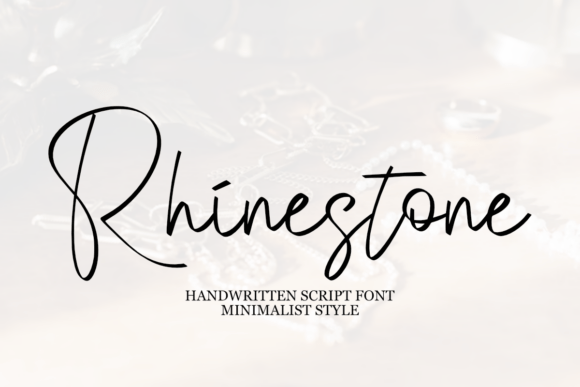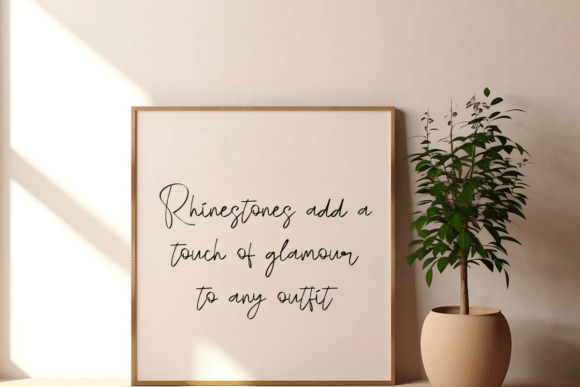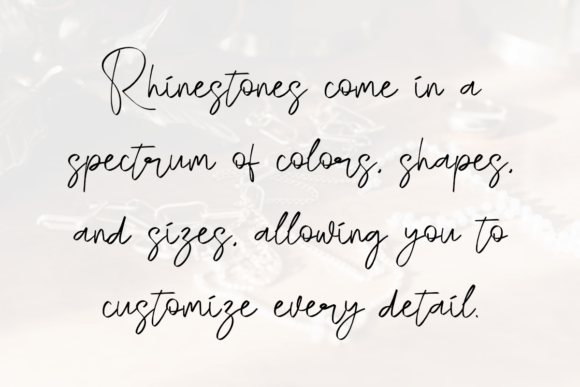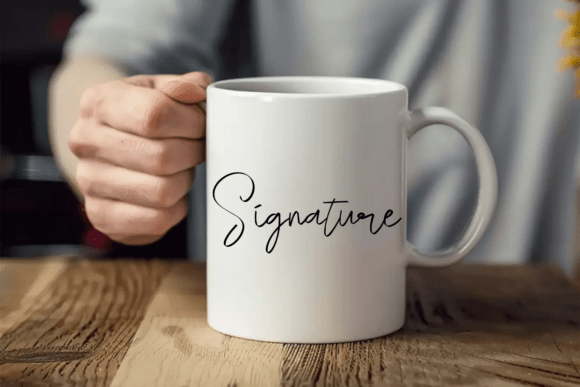
Rhinestone Font: Elegant Script for Wedding & Branding Design
About the Rhinestone Font
Welcome to the world of Rhinestone Font, a typeface that will inspire your next great project. Rhinestone is a sweet and cursive handwritten font. This gentle font will look gorgeous on a variety of design ideas. It will add a joyful and romantic touch to each of your projects! Perfectly fit for branding, logo, wedding things, greeting cards, fashion, lookbook, marketing promotion, and any time you want your design to look fancy and elegant but still casual.
Rhinestone’s playful yet elegant style makes it ideal for headlines, short text blocks on invitations or packaging, and logos requiring a touch of handwritten charm. It excels in branding for businesses focused on fashion, beauty, or events with a romantic or whimsical feel. However, its cursive nature and relatively low x-height make it unsuitable for body text or UI elements where readability is paramount. Avoid using it for lengthy paragraphs or small sizes.
Pairing Rhinestone effectively requires considering its delicate nature. A clean sans-serif like Lato or Open Sans provides a strong, modern counterpoint, offering readability for supporting text. For a more luxurious feel, pair it with a classic serif like Garamond or a subtly geometric sans-serif like Montserrat. Avoid pairing it with other script fonts, which would create visual clutter.
The overall personality of Rhinestone is best described as charming and romantic, conveying a sense of gentle sophistication. Its slightly irregular stroke weight and fluid forms add a touch of hand-drawn authenticity, making it suitable for brands seeking a unique and approachable yet elegant identity.
Rhinestone Font Usage Examples
Rhinestone Font Example